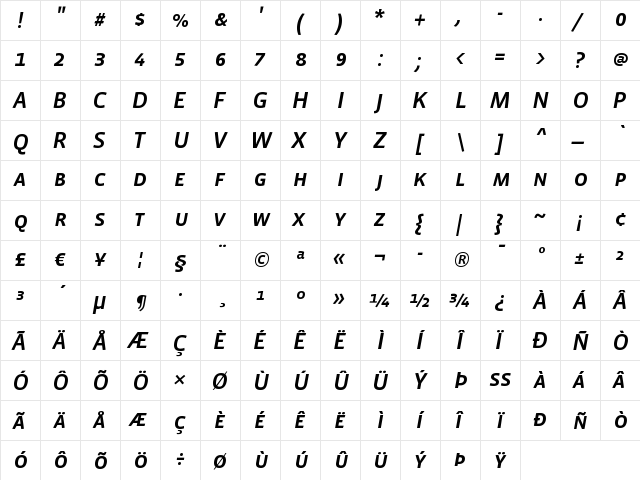
VistaSansSCMedIta Regular Font Preview
VistaSansSCMedIta Regular
VistaSansSCMedIta Regular Font Details
| Foundry | Xavier Dupre |
| Designer | Xavier Dupre |
Design Context for VistaSansSCMedIta Typeface
VistaSansSCMedIta takes a measured approach to typography — its balanced proportions and neutral character make it a reliable workhorse for both digital and print work.